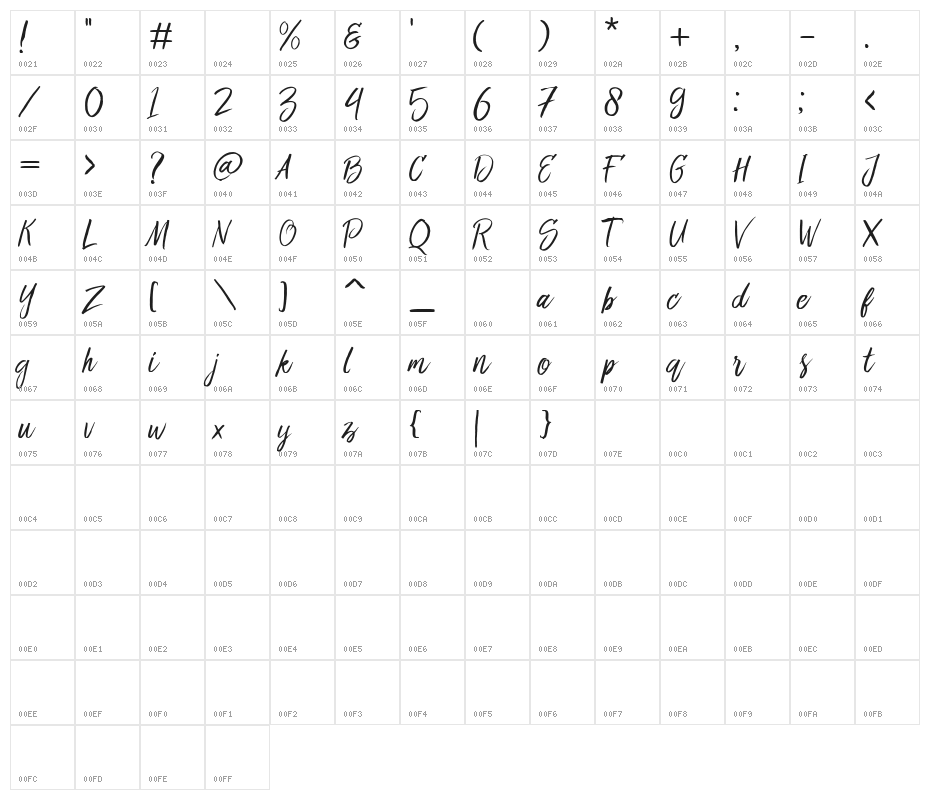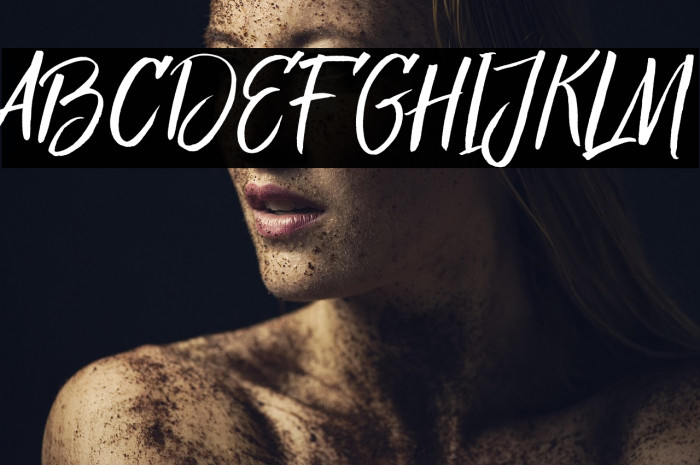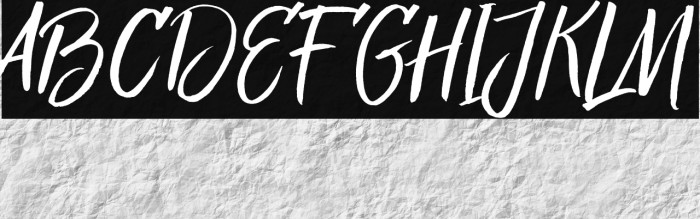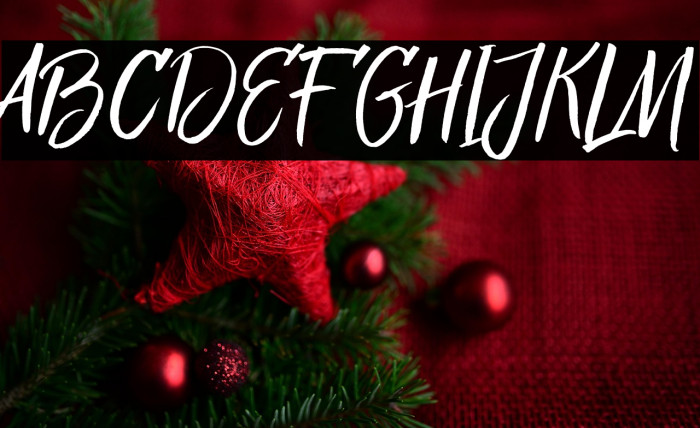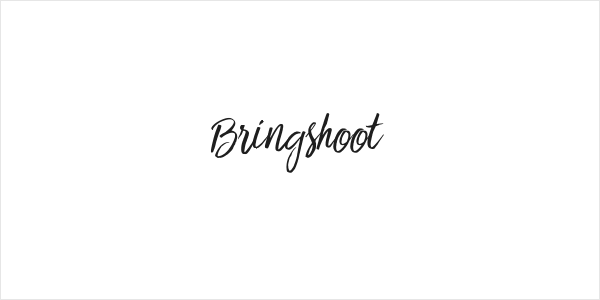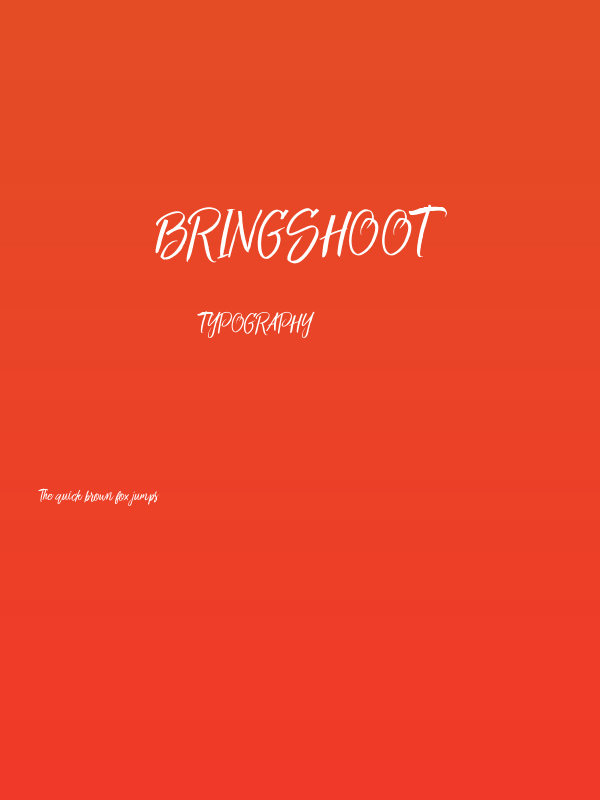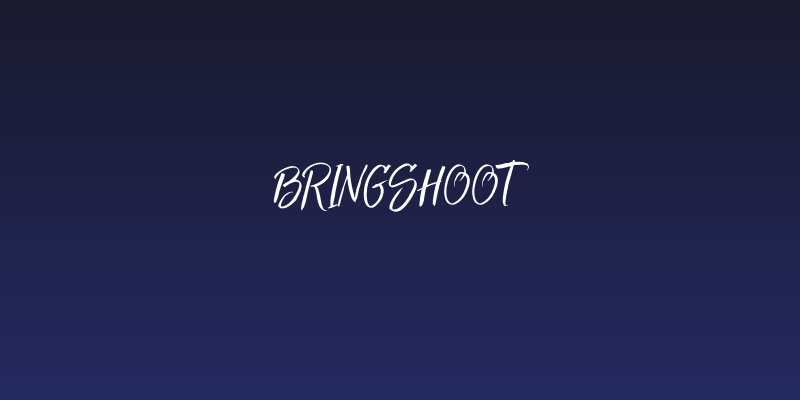
Bringshoot Font
Bringshoot Description
This font features a dynamic and expressive handwritten style, characterized by fluid strokes and a natural flow. The uppercase letters are bold and slightly slanted, giving a sense of movement and energy. The lowercase letters maintain a consistent style with a slight variation in height, adding to the font's organic feel. Numbers and special characters are crafted with the same lively touch, ensuring a cohesive appearance across all elements. The overall design is both artistic and legible, making it suitable for creative projects that require a personal touch.